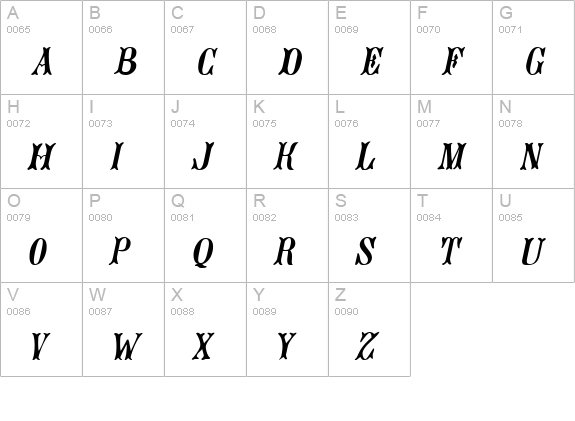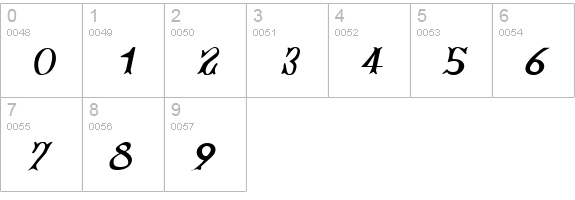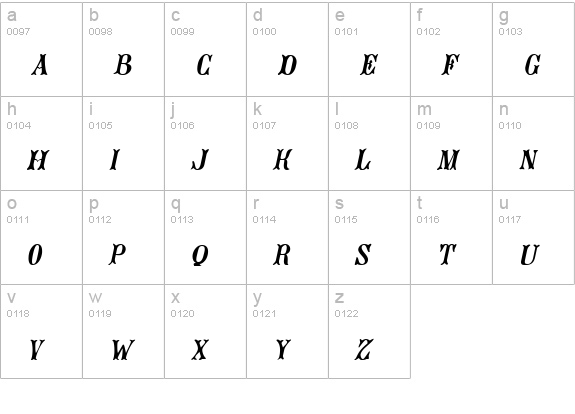
Jacques Italic Font Details
Jacques Italic is a distinctive, italic variant in the Jacques typeface family \xE2\x80\x94 well suited to design and typography projects.
Introducing Jacques Italic, a stunning and versatile font that effortlessly captures the essence of elegance and sophistication. This exquisite typeface combines the perfect balance of delicate curves, flowing lines, and graceful serifs, resulting in a truly captivating aesthetic that is sure to elevate any design project. With its sleek and refined appearance, Jacques Italic exudes a sense of timeless beauty. Whether used for branding, editorial design, invitations, or any other creative endeavor, this font brings a touch of class and sophistication to every application. Its slender and graceful letterforms create a harmonious rhythm, making it a joy to read and a pleasure to work with. What sets Jacques Italic apart is not only its extraordinary design but also its accessibility. This font is freely available to download at FontsMarket.com, allowing designers, artists, and enthusiasts to effortlessly incorporate its elegance into their projects. Embrace the freedom to create exquisite designs with this remarkable typeface. The versatility of Jacques Italic knows no bounds. It effortlessly adapts to various design styles, from vintage and retro to modern and contemporary. Its timeless appeal makes it suitable for any occasion, whether it be a wedding invitation, a fashion magazine layout, or a high-end branding project. The attention to detail in Jacques Italic is truly remarkable. Each glyph is meticulously crafted, ensuring smooth and consistent lines that add a sense of refinement to every character. The overall effect is a font that exudes quality and professionalism, making it the perfect choice for those who seek to make a lasting impression. So, if you are in search of a font that embodies elegance, sophistication, and versatility, look no further than Jacques Italic. Download this remarkable typeface for free at FontsMarket.com and unlock a world of possibilities for your design projects. Elevate your creations with the timeless beauty of Jacques Italic and leave a lasting impression on your audience.